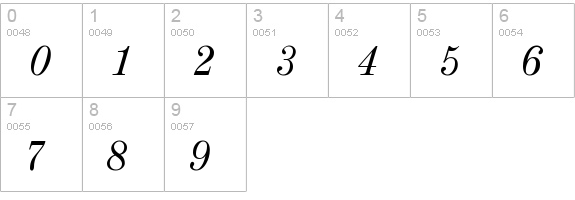
RubyScript Regular Font Details
RubyScript Regular is the standard, neutral variant in the RubyScript typeface family \xE2\x80\x94 well suited to general body text, paragraphs, and standard typographic work.
RubyScript Regular font is a stylish and elegant typeface that exudes sophistication and charm. Its sleek lines and classic curves make it perfect for a wide range of design projects, from branding to editorial design. This font offers a timeless appeal that is both versatile and easy to read, making it ideal for both print and digital applications. With its clean and modern design, RubyScript Regular font is sure to elevate any project to the next level. Best of all, RubyScript Regular font is available for free download at FontsMarket.com. So whether you're a seasoned designer looking for a new favorite font or a beginner looking to add a touch of class to your projects, RubyScript Regular font is the perfect choice. Download it today and let your creativity shine!